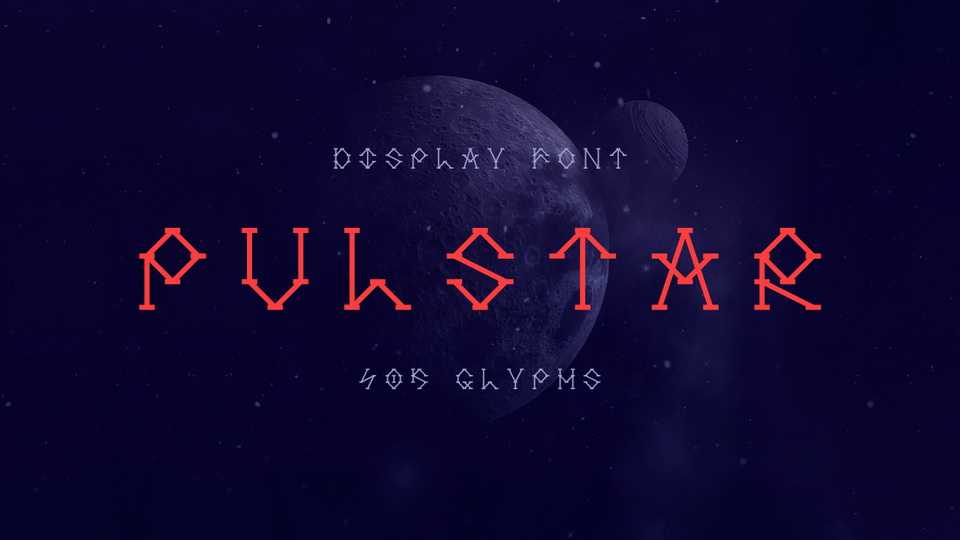
Download Pulstar font, a unique display typeface with a futuristic look. Pulstar font is best for branding, games, posters, album covers and any artworks.